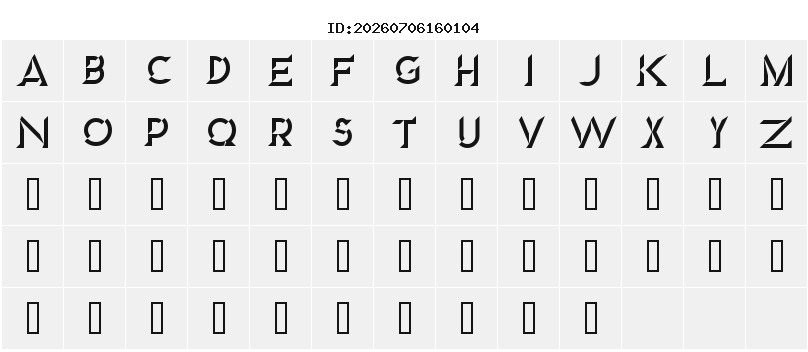
Diamond Preview
• Font Name: Diamond
• Full Font Name: Diamond
About Diamond.ttf
Diamond.ttf is a modern, elegant sans-serif font designed for ultimate readability and visual harmony. Perfect for branding, headlines, web design, and print materials.